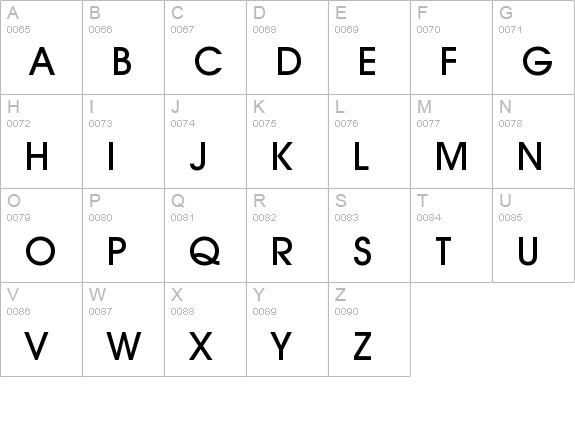
Avant Garde Medium BT Font Details
Avant Garde Medium BT is a balanced, medium-weight variant in the Avant typeface family \xE2\x80\x94 well suited to sub-headlines, navigation, and balanced editorial work.
Avant Garde Medium BT font is a bold and modern typeface that exudes a sense of sophistication and innovation. With its unique and avant-garde design, this font is perfect for making a statement in any creative project. Its medium weight strikes the perfect balance between elegance and impact, making it a versatile choice for a wide range of design applications. What sets Avant Garde Medium BT font apart is its distinctive letterforms and clean lines, which give a contemporary and stylish look to any text or graphic. Whether used for headlines, logos, posters, or branding, this font is sure to capture attention and leave a lasting impression. The best part is that Avant Garde Medium BT font is available for free download at FontsMarket.com. Now you can add this cutting-edge font to your collection without any cost, allowing you to unleash your creativity without limitations. Don't miss out on this opportunity to elevate your designs with the sleek and modern style of Avant Garde Medium BT font.